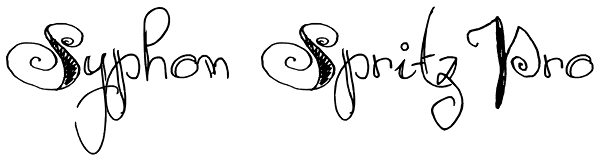
Syphon Spritz Pro
A free flowing and loose handwritten style, with the occasional double lines - and with quite elaborate and decorative initials. Feminine, but sloppy - an interesting combination. I have regularized the stroke thicknesses and modified a couple of...